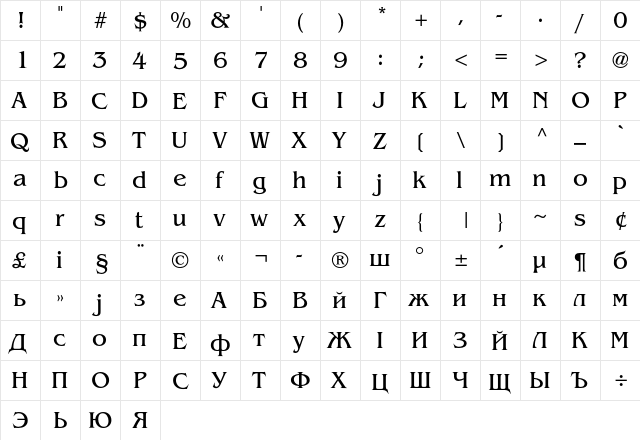
AGBengaly Regular
Design Context for AGBengaly Typeface
AGBengaly is a composed and adaptable typeface that performs quietly and consistently across a wide range of design contexts.